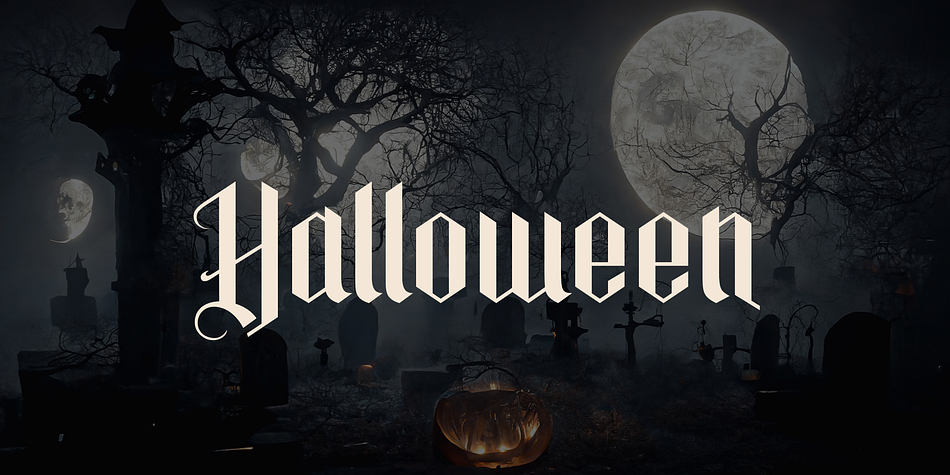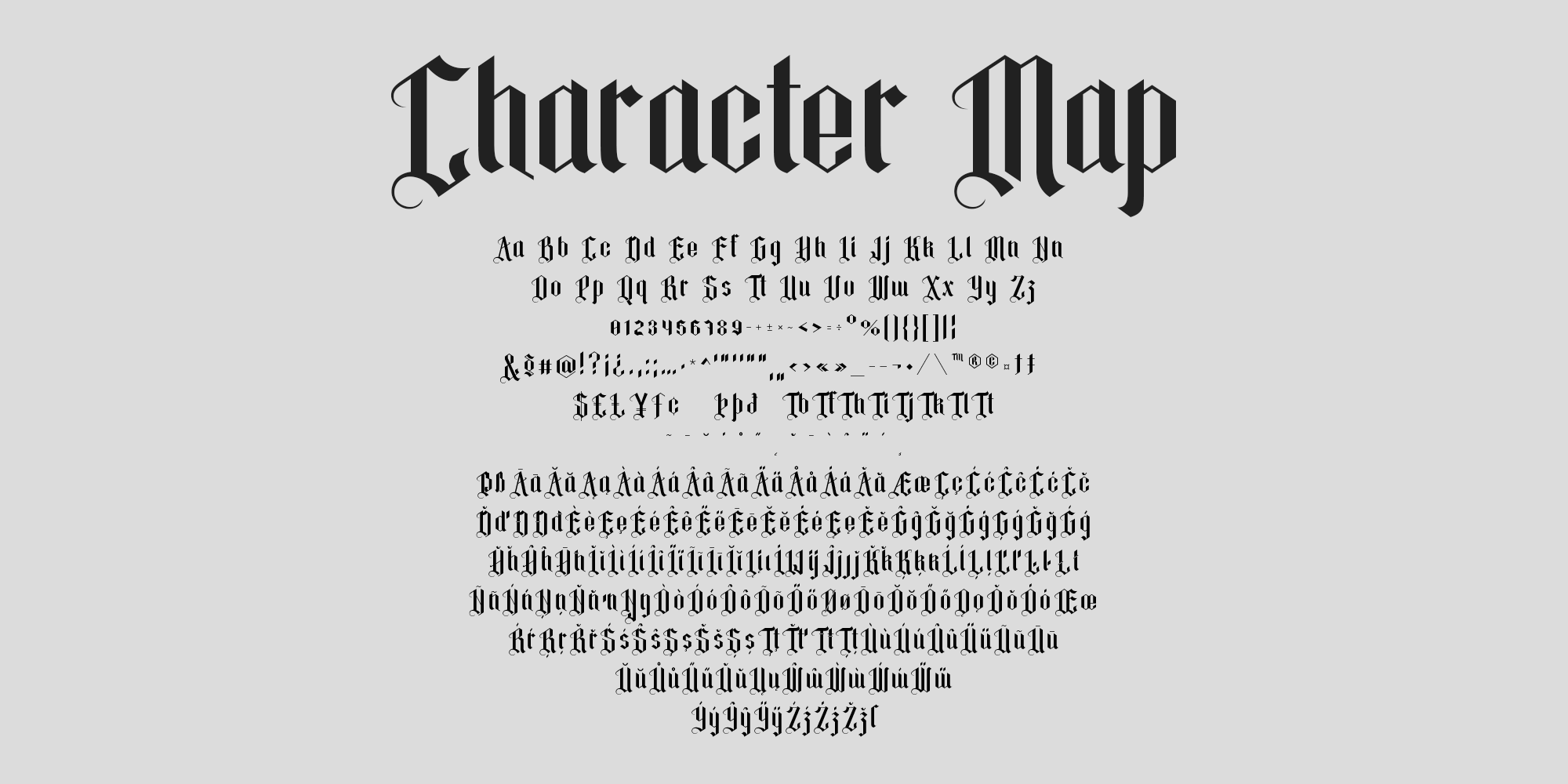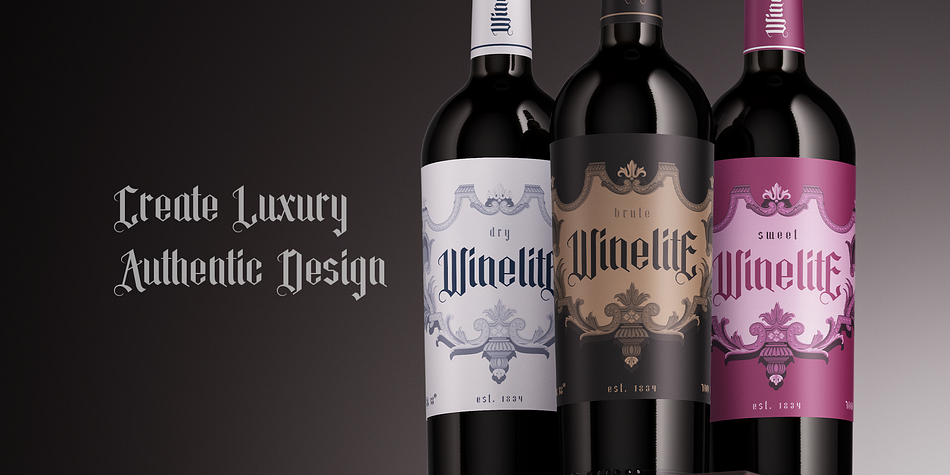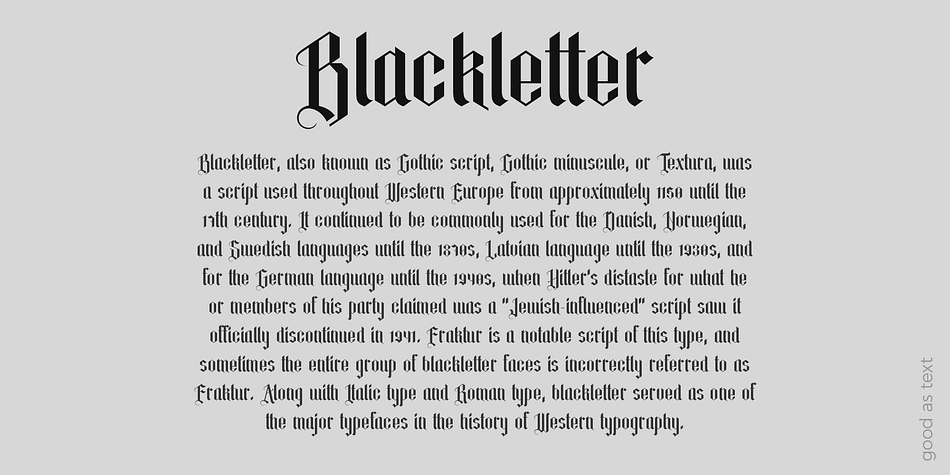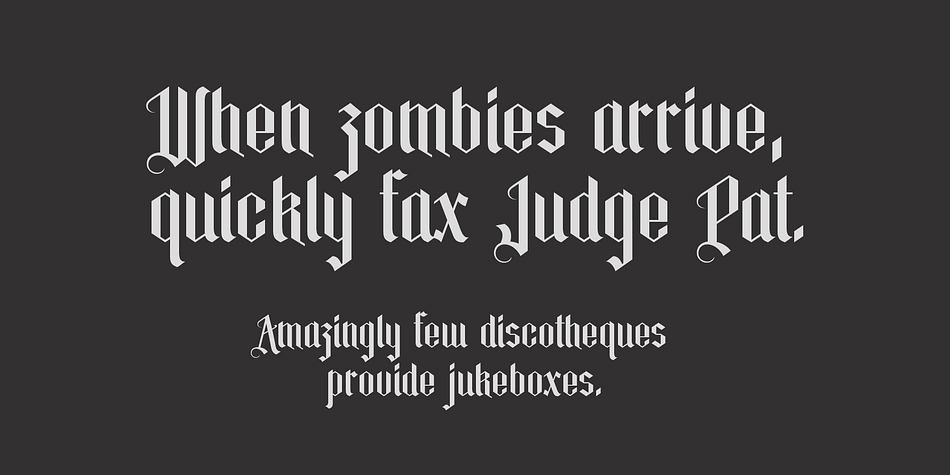
Gothicon
Gothicon is a blackletter font family published by Sentavio.
Gothicon is an authentic classic blackletter gothic vintage font.
Well to use in Poster, Vintage Labels & Badges, Headline, Packaging, Clothing Branding and much more.